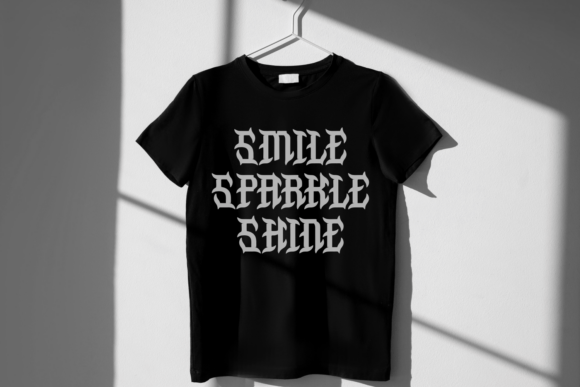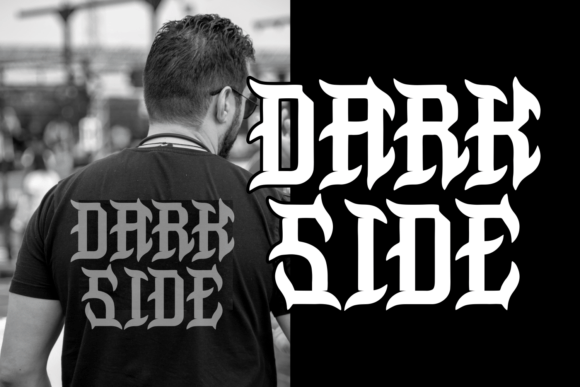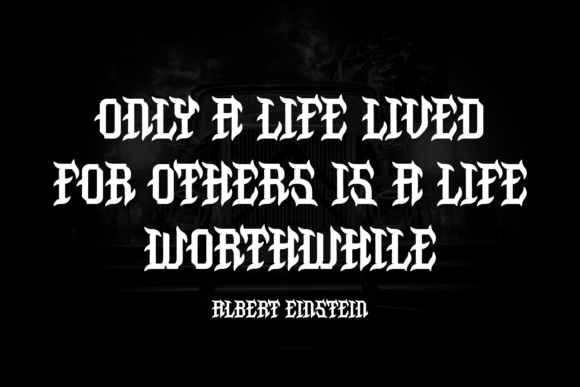
Introduction to Make More Font
As designers, we’ve all been there – staring at a blank page, searching for the perfect font to bring our creative project to life. It’s that moment when the idea hits, and you know exactly what you want to convey. For those seeking a vintage touch with a hint of elegance, the Make More Font is a game-changer.
With its intricate, sharp lines and dramatic flourishes, this font evokes a sense of history and craftsmanship. Whether you’re working on a logo, poster, or vintage-style project, the Make More Font is the perfect design resource to elevate your work. And the best part? It’s available for a free download, complete with a transparent background, making it easy to integrate into your design.
As a high-quality design resource, the Make More Font is a valuable addition to any designer’s toolkit. Its timeless elegance ensures that your designs will stand the test of time, and its versatility makes it perfect for a wide range of creative projects.
Key Features of Make More Font
- High-quality font designs with transparent backgrounds, ideal for creative projects requiring a clear and elegant look.
- Unique and stylish designs, perfect for adding a touch of creativity to any project, from branding materials to social media graphics.
Honest Review: Make More Font
As a designer, I’m always on the lookout for high-quality design resources that can elevate my creative projects. Recently, I came across Make More Font, a font that caught my attention with its unique style and versatility.
- ✨ High quality: The font is well-designed, with crisp lines and a transparent background that makes it perfect for use on various backgrounds.
- ✨ Versatile: Make More Font is suitable for a wide range of creative projects, from digital designs to print materials.
- ⚠️ Limited character set: While the font is well-designed, its character set is somewhat limited, which may be a drawback for designers who need a more extensive range of characters.
- ⚠️ Not suitable for all styles: The font’s unique style may not be suitable for all types of designs, particularly those that require a more traditional or formal look.
Overall, I’m impressed with Make More Font’s potential as a design resource. While it has some limitations, its high quality, free availability, and versatility make it a great addition to any designer’s toolkit.
Make More Font
Tips for Getting the Most Out of Make More Font
Make More Font is perfect for creating eye-catching titles, headings, and body text in a variety of design projects, including social media graphics, presentations, and marketing materials.